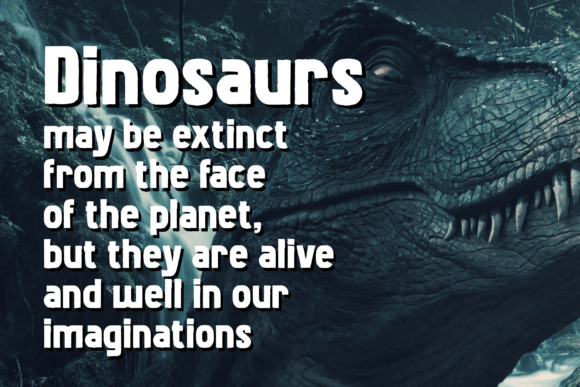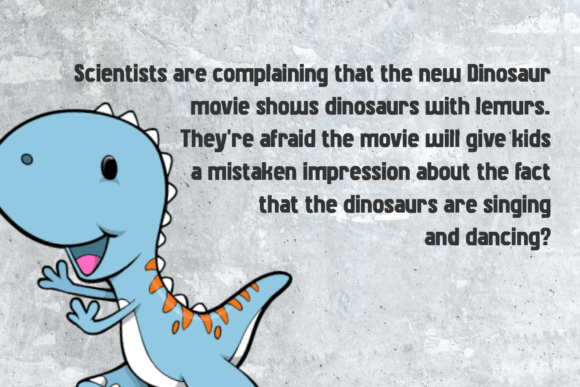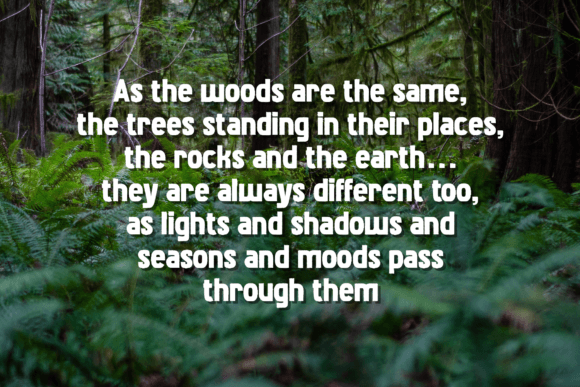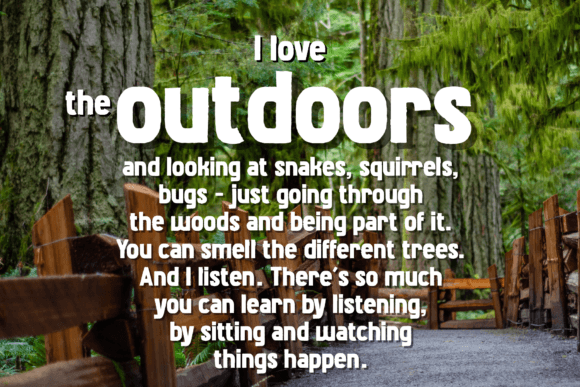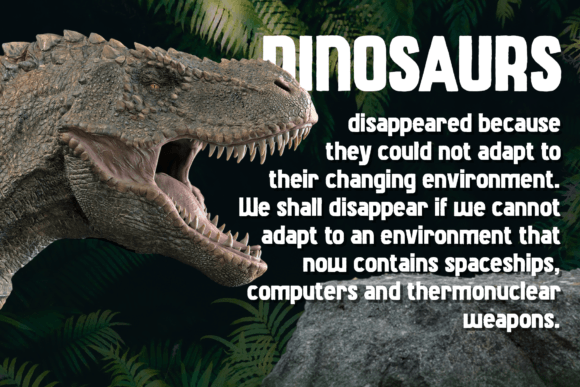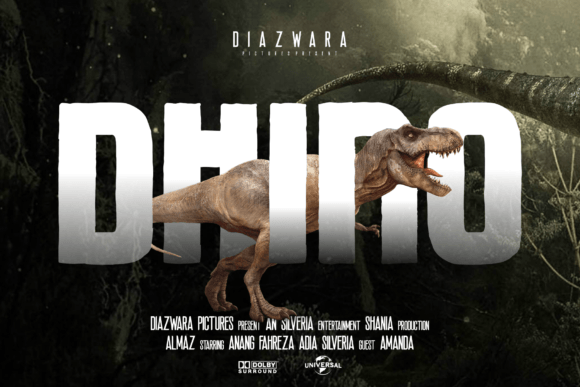
Introduction to Dhino Font
Have you ever stumbled upon a font that instantly transports you back to your childhood, filled with memories of crayons, playtime, and endless imagination? For designers, finding that perfect font can be a game-changer, elevating a creative project from ordinary to extraordinary. The Dhino Font is one such treasure, specifically crafted to capture the whimsy and charm of childhood, making it a valuable addition to any design resource.
As a designer, you’re always on the lookout for high-quality fonts that can bring your vision to life. With its modern, elegant, and creative concepts, the Dhino Font is an excellent choice for branding, web use, and any project that requires a touch of playfulness. Its clean lines, sharp edges, and condensed spacing make it a stellar option for designers seeking a unique and professional look.
Whether you’re working on a children’s book, a birthday invitation, or a comic strip, the Dhino Font is sure to add a delightful touch to your design. With its transparent background and free download option, you can experiment with this beautiful font without any limitations. Get ready to unleash your creativity and discover the magic of the Dhino Font!
Dhino Font
- Unique characteristic: A modern, bold, and playful design style, perfect for adding a creative touch to your projects
Honest Review: Dhino Font
As a designer, I’m always on the lookout for high-quality design resources to elevate my creative projects. The Dhino Font is a recent addition to my toolkit, and I’m excited to share my honest thoughts.
- ✨ The Dhino Font offers a unique and playful aesthetic that’s perfect for adding some whimsy to your designs.
- ✨ The font is highly customizable, with a range of weights and styles to suit different design needs.
- ✨ The transparent background option allows for seamless integration with other design elements.
- ⚠️ The font can be quite large, making it less suitable for smaller design projects or text-heavy content.
- ⚠️ The font may not be as versatile as some other design resources, particularly for more formal or professional applications.
Overall, I’m impressed with the Dhino Font’s quality and creative potential. While it may not be the perfect fit for every design project, it’s a valuable addition to any design resource library, especially for those looking for a fun and playful font. And the best part? It’s available for free download, making it an excellent choice for designers on a budget.
Tips for Getting the Most Out of Dhino Font
Use the Dhino Font in combination with a transparent background to create a high-quality design. You can also use it in various creative projects such as logos, posters, and business cards.
The Dhino Font is commonly used in various design projects such as logos, business cards, posters, and brochures. It is also used in digital projects such as mobile apps, websites, and social media graphics.